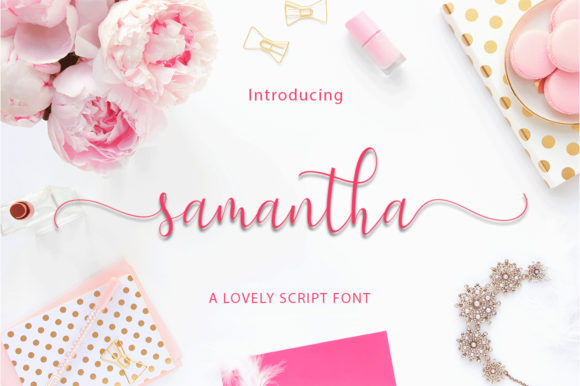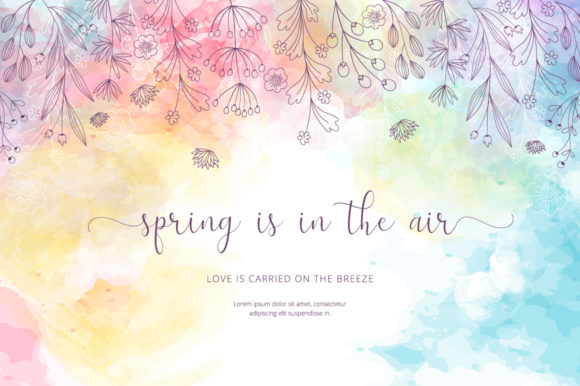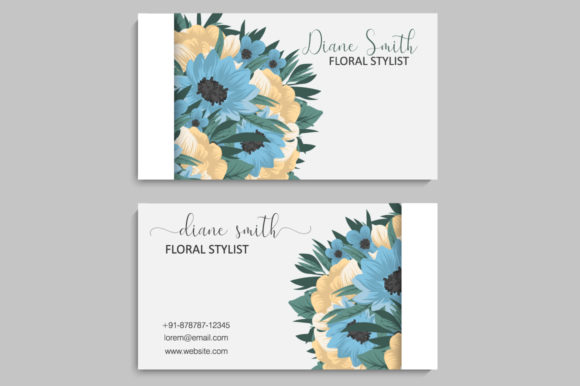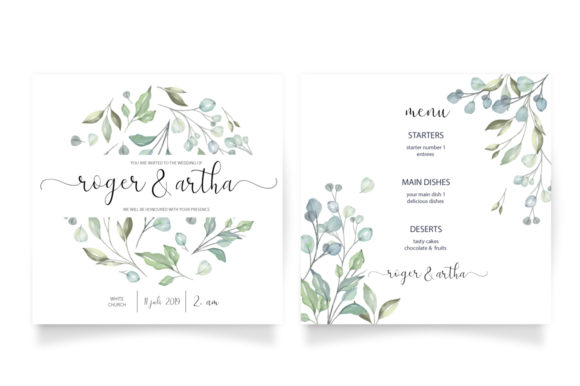
Samantha Font
About Samantha Font
Samantha is a delicate and unique handwritten font with a lovely charm. It will turn any design project into a stand out!